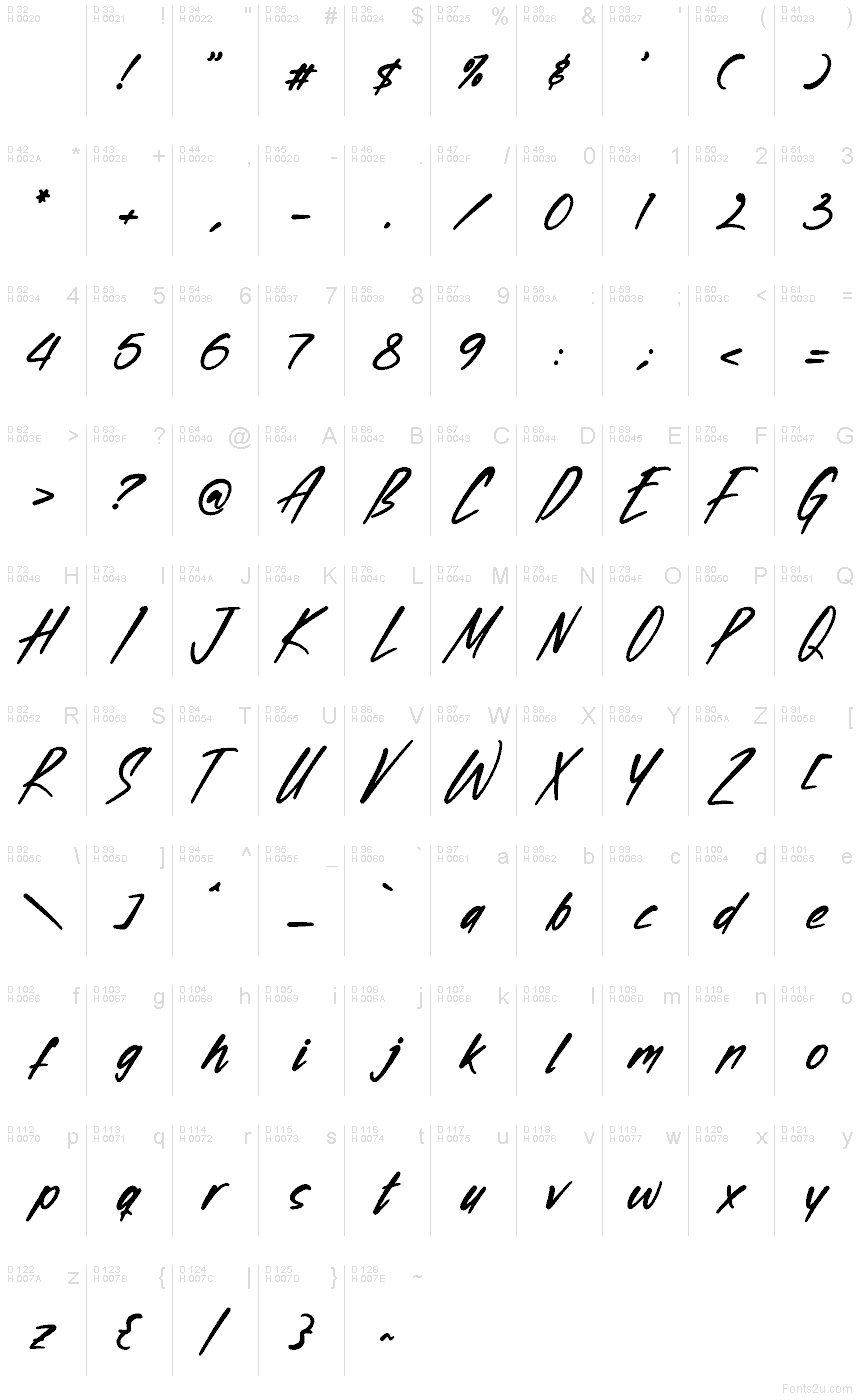
Hicktomes
Hicktomes font by Letterena Studios is a free handwritten font with a casual and modern flair. Its flowing style beautifully mimics real handwriting, giving it an authentic and elegant feel. Ideal for projects that require a more intimate and personal touch, its contemporary design adds warmth and sophistication.
Suitable uses include logos, wedding invitations, branding, social media graphics, posters, headlines, packaging design, greeting cards, stationery, blog headers, and any project where a signature-style mark is desired.